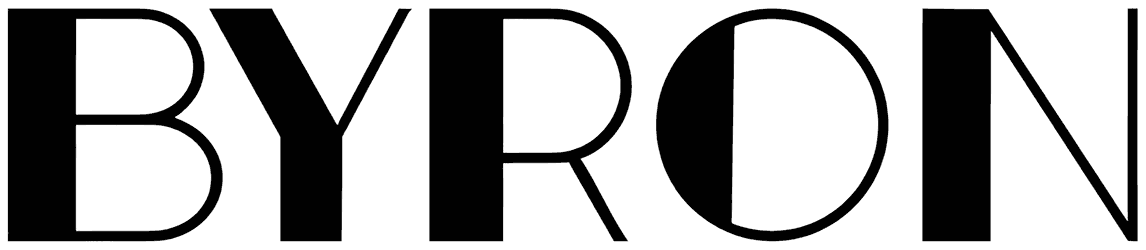
Byron Font
While attracting the attention of the audience is getting more difficult every moment, a marvelous classic font such as the Byron can be your game-changer and let you easily impress the viewers.
Aside from the lack of lowercase letters and numbers, it can bring a sense of tenderness, nostalgia, vintage, or vitality to all of your projects. It can be your survival in the realm of designing social media posts, stickers, product packaging, book covers, or magazines.